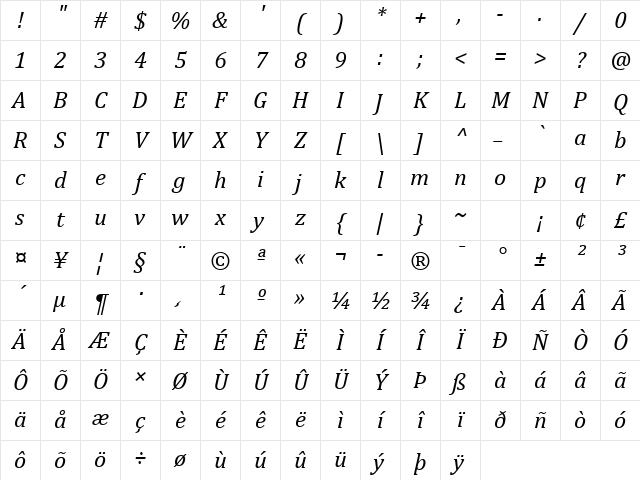
Cambria Italic
Foundry: Microsoft Corporation
Designer: Agfa Monotype Corporation
Complete Cambria Italic glyph index. Displaying only characters natively supported by Cambria Italic font.
Design Context for Cambria
Cambria is a composed and adaptable typeface that performs quietly and consistently across a wide range of design contexts. The slanted form adds forward momentum and visual energy.
Pro Tip: Use Cambria for emphasis, pull quotes, and subheadings where its slanted energy can add rhythm to the layout.